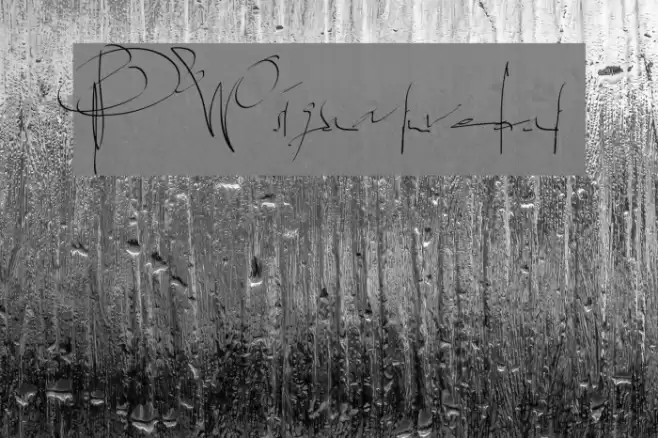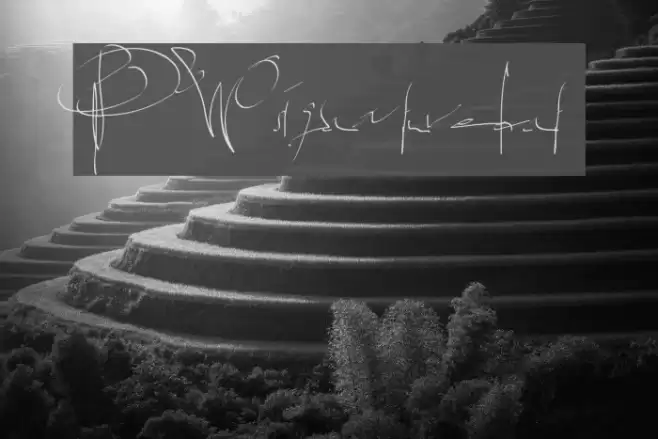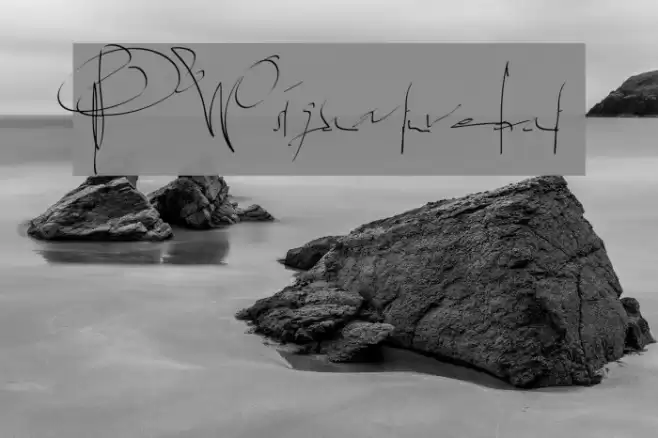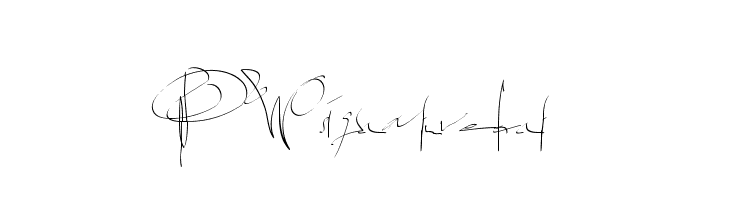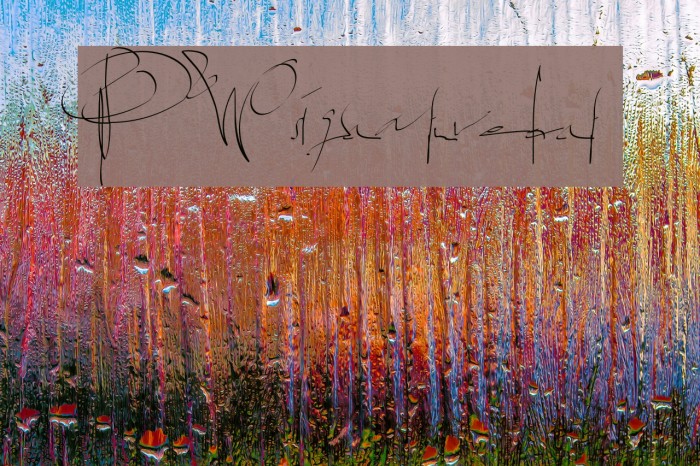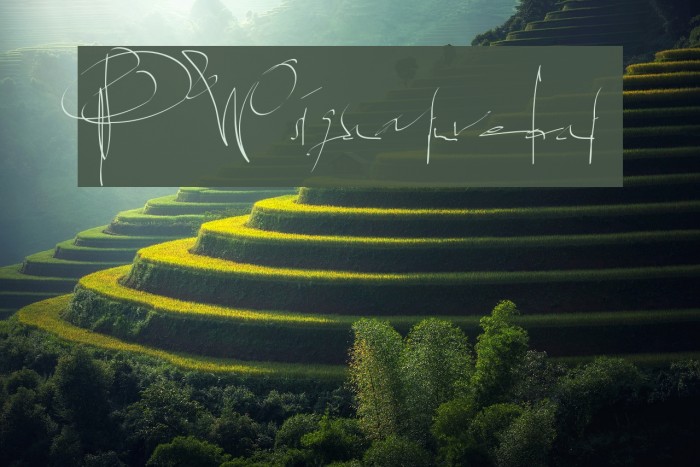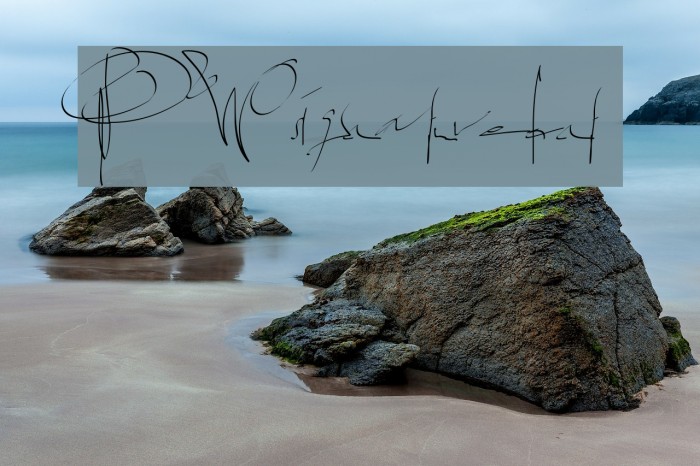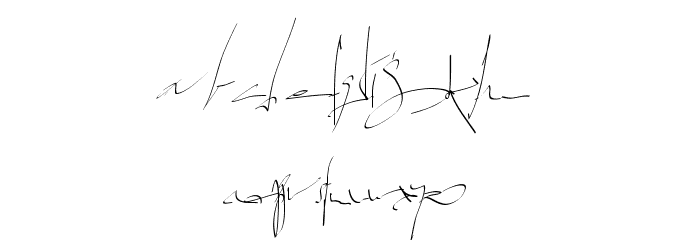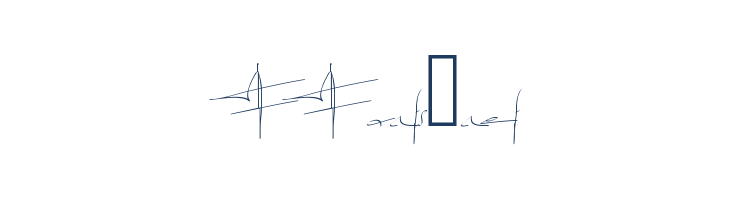
PWsignaturefont Font
PWsignaturefont Description
This font exhibits a highly stylized and artistic script, reminiscent of a personal signature. The characters are fluid and interconnected, with an emphasis on elegant, sweeping curves and intricate loops. The strokes vary significantly in thickness, adding a dynamic and expressive quality to the text. This font captures the essence of handwritten calligraphy, with a modern twist that makes it suitable for creative and personalized projects. The overall appearance is both sophisticated and unique, making it ideal for applications where individuality and style are paramount.
An artistic, signature-style script font with fluid, interconnected characters from Uncategorized fonts.
- Proposed Projects: Ideal for personal branding, invitations, greeting cards, and artistic projects requiring a personal touch.
- Character Spacing: Tight
- Use Case: Logos, Invitations, Personal Branding